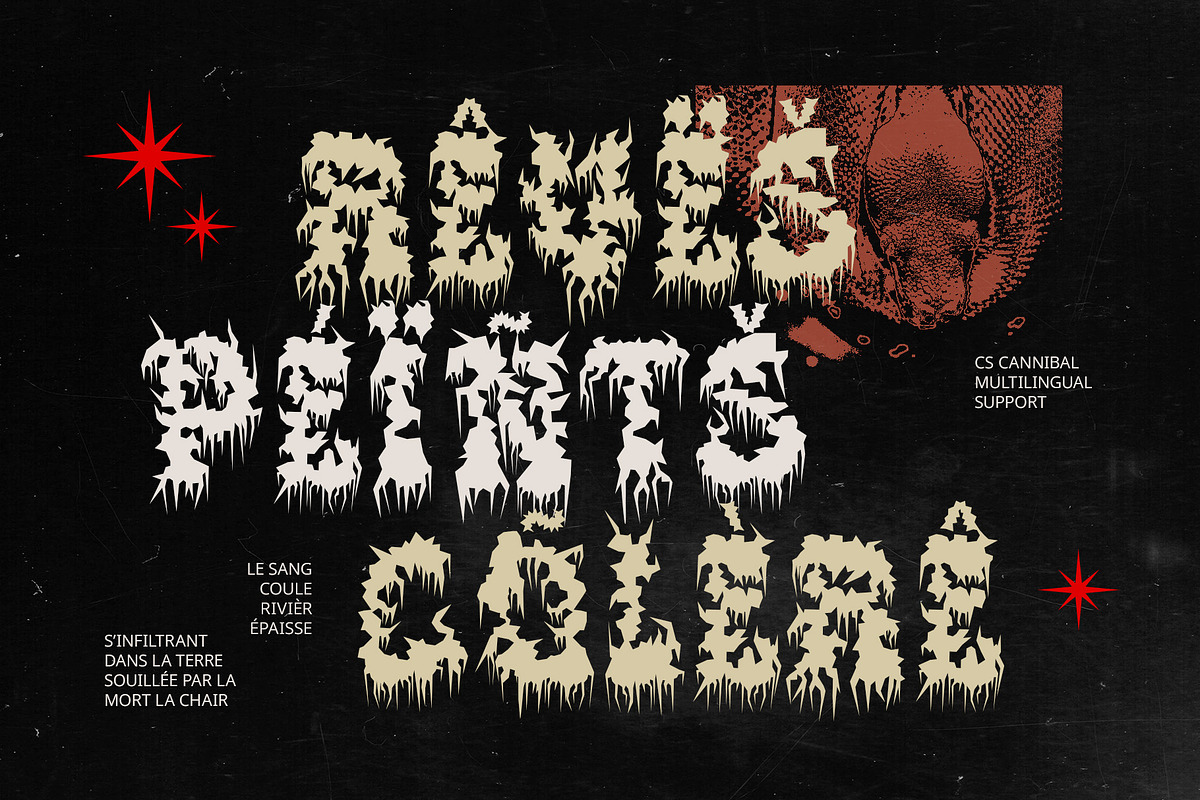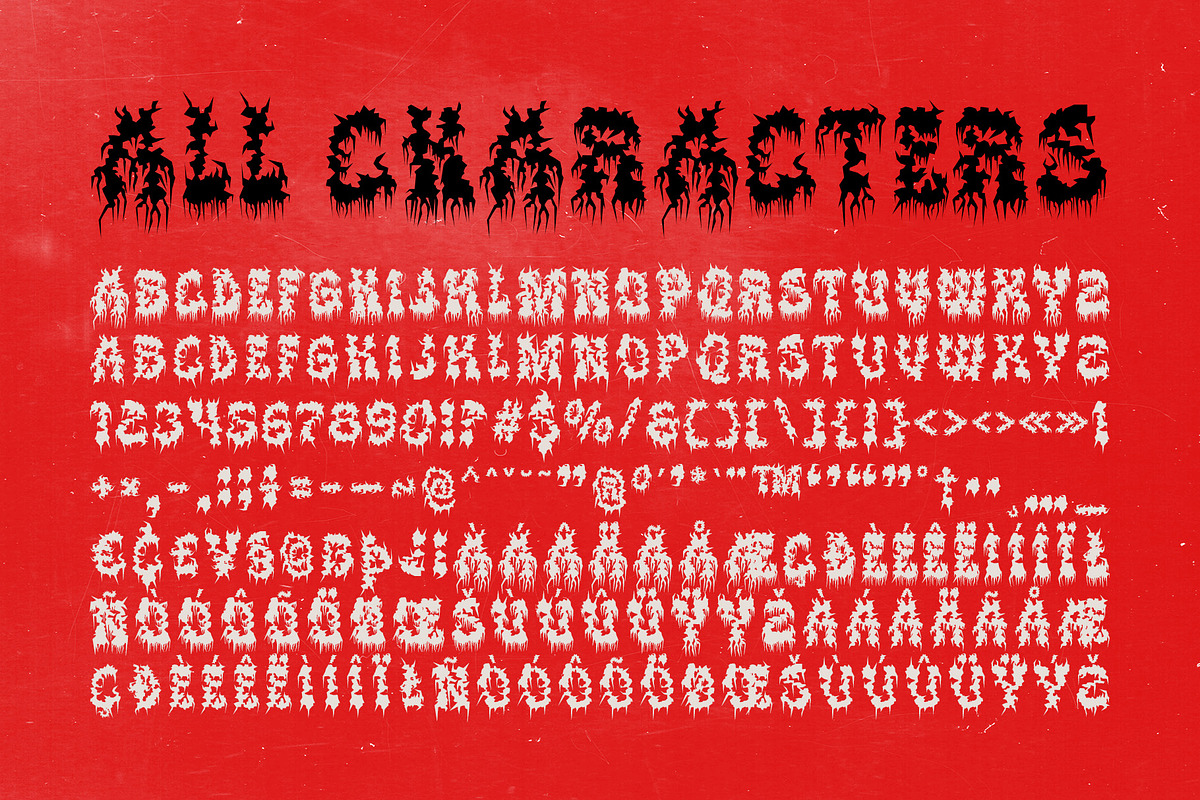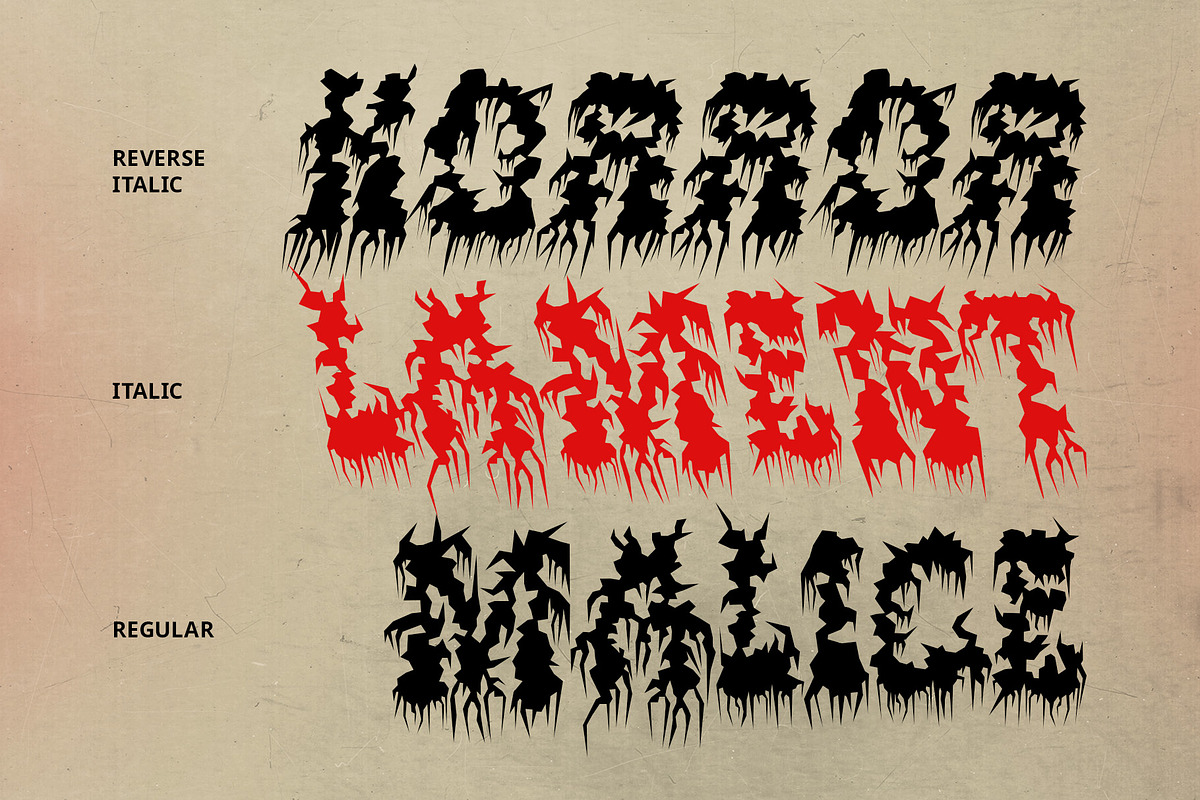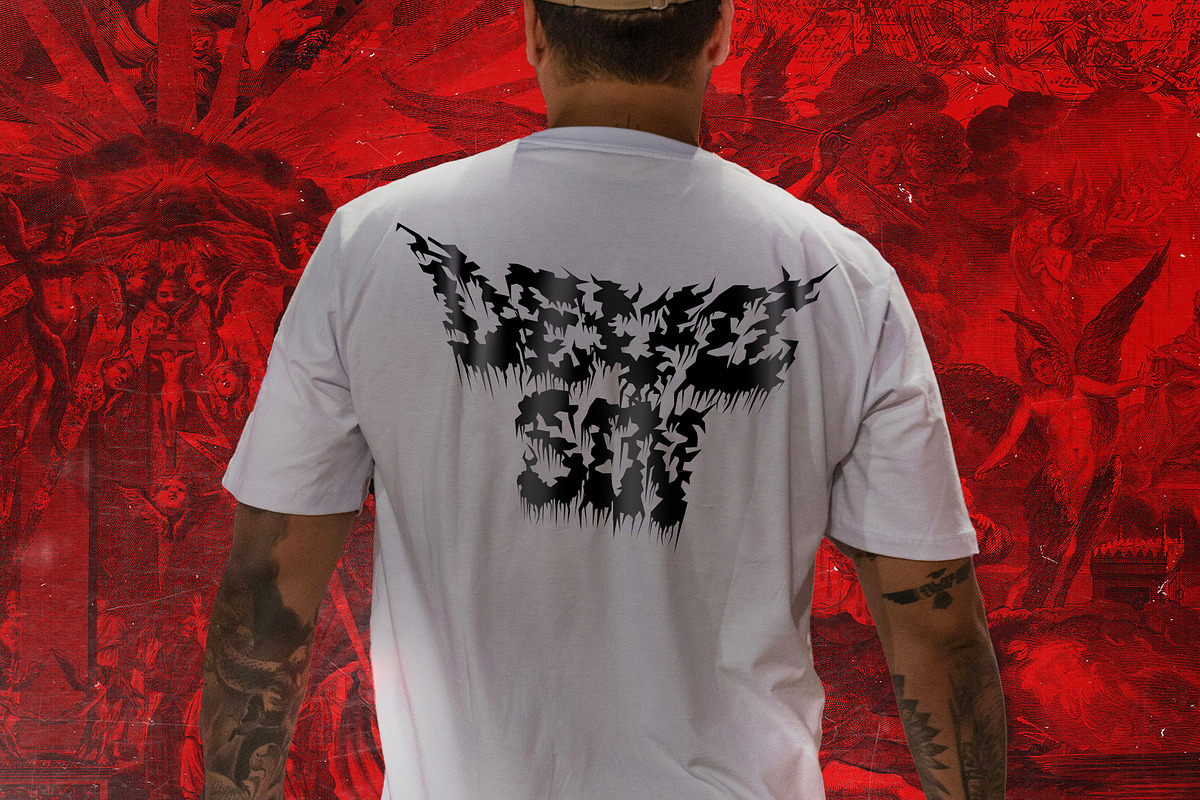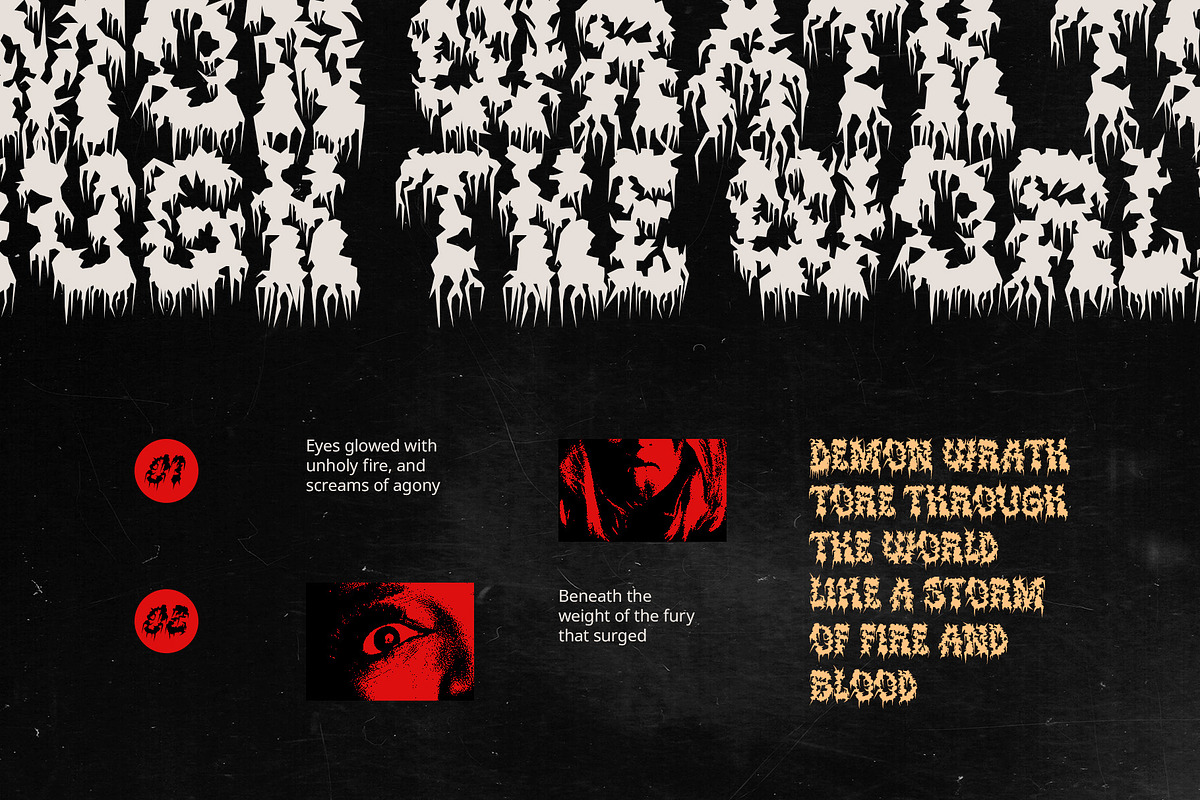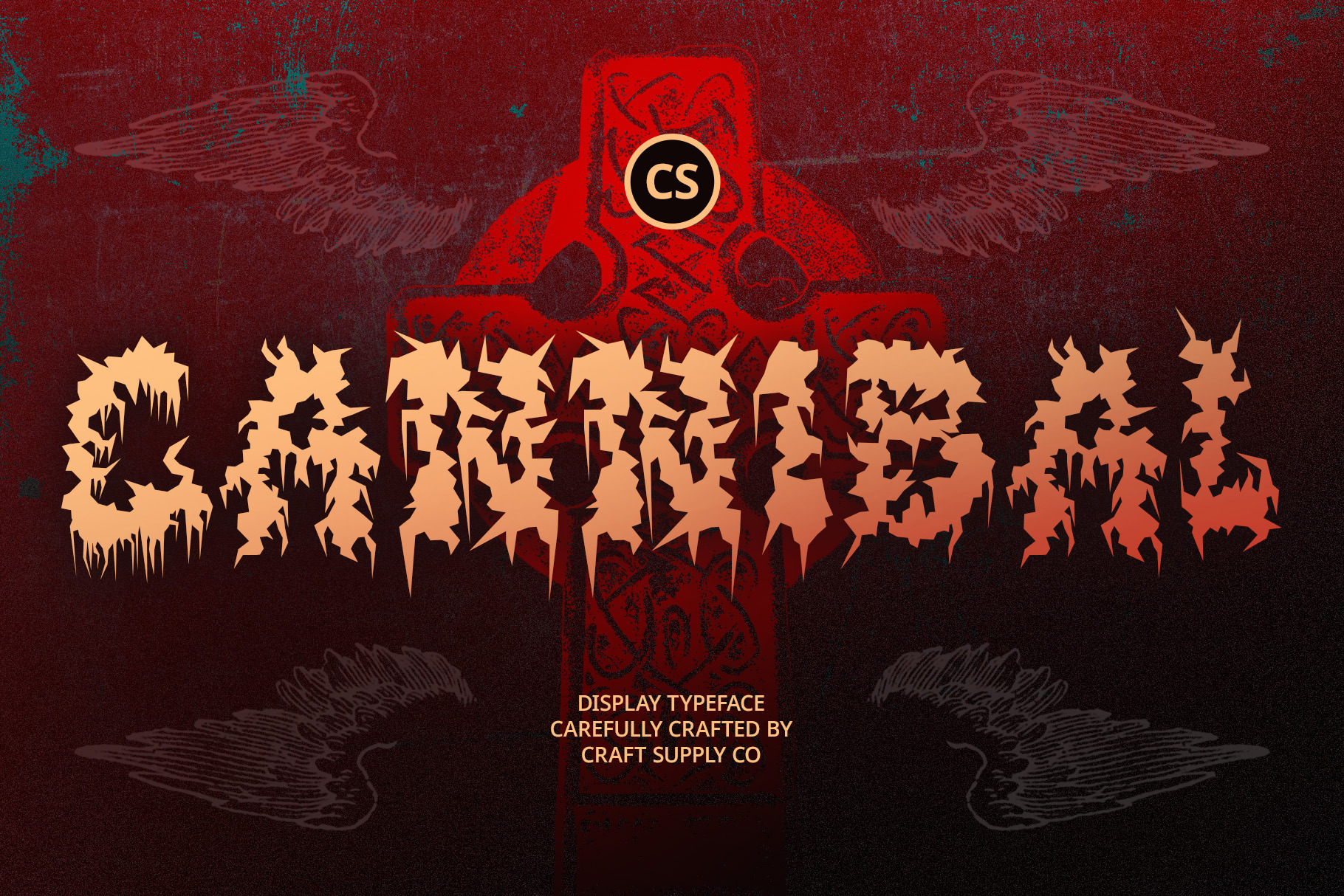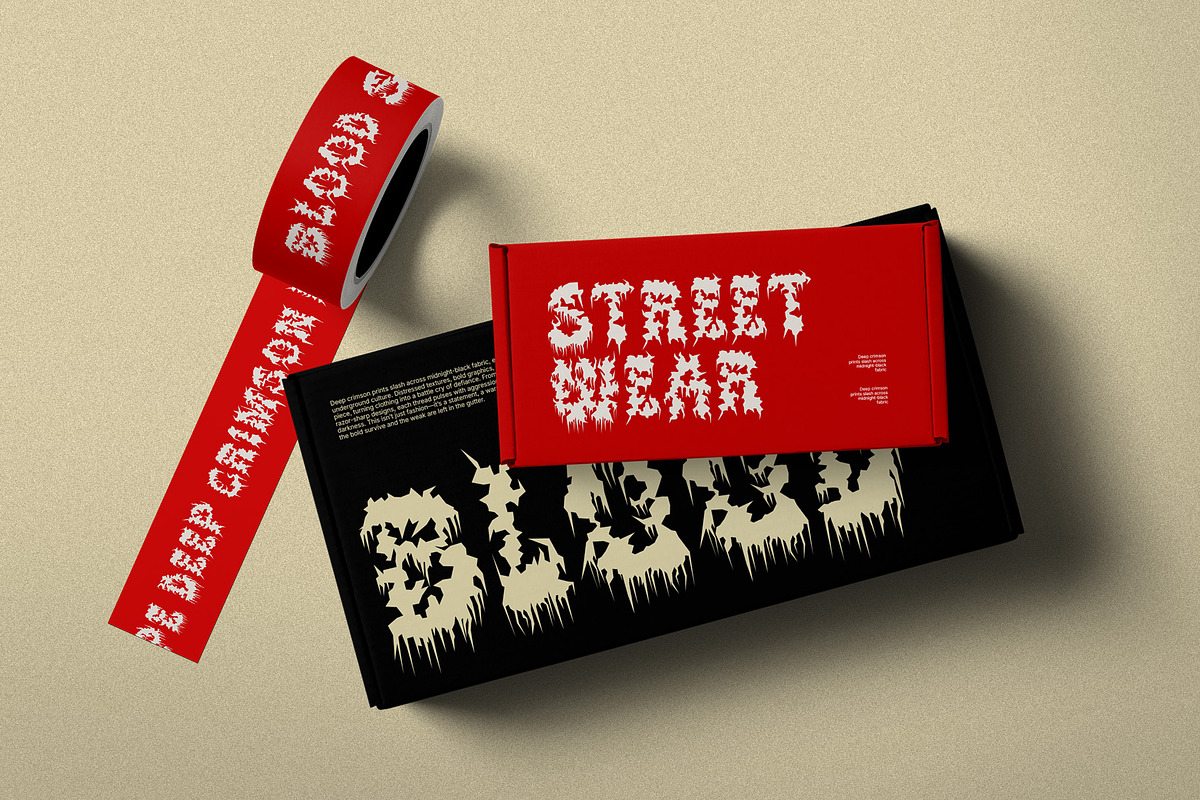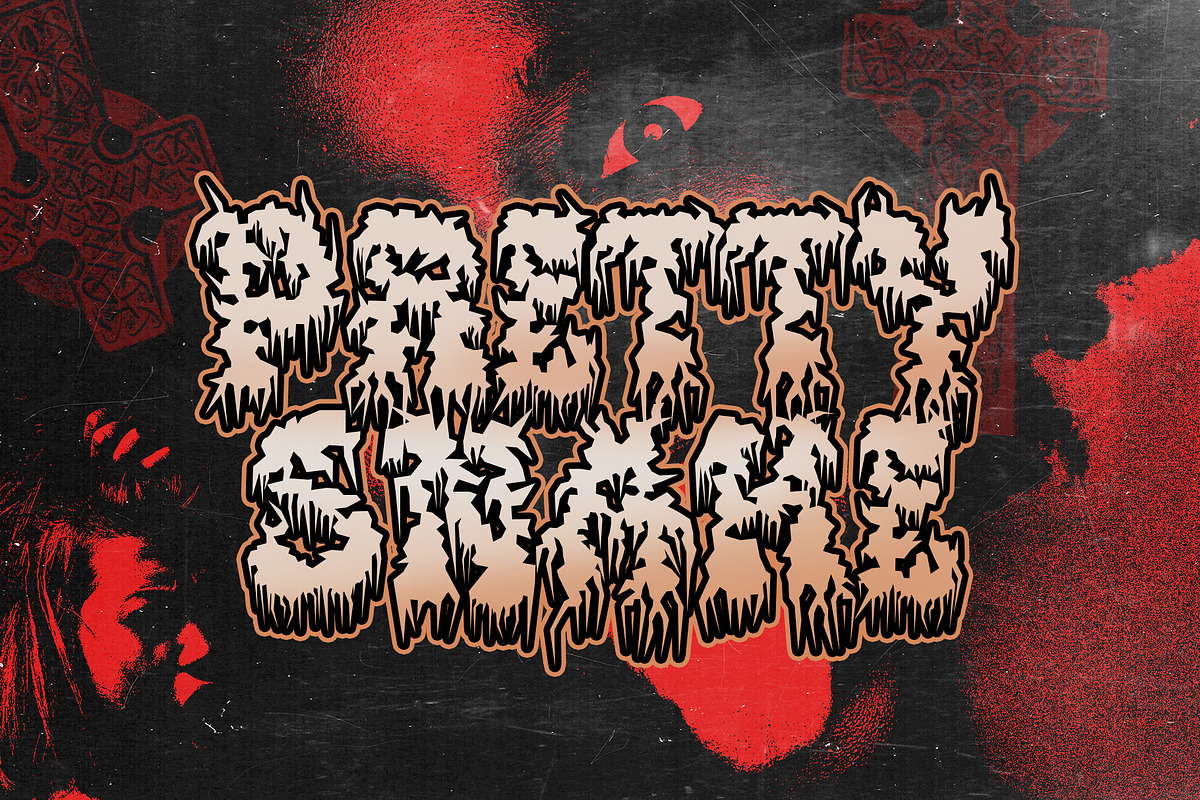
CS Cannibal – Black Metal Font
CS Cannibal – Black Metal Font: Raw, Chaotic, and Extreme
Brutal Black Metal Display Font CS Cannibal is a Black Metal display font designed to capture the raw intensity and dark mysticism of extreme metal aesthetics. With its sharp, aggressive strokes and distorted letterforms, this font embodies the spirit of chaos, rebellion, and underground culture, making it a perfect fit for designs that demand a fierce and unrelenting presence.
Jagged Textures and Mystical Elements Featuring rough, thorn-like textures, jagged edges, and abstract details resembling roots or mystical symbols, CS Cannibal enhances the brutal and eerie atmosphere of metal-inspired visuals. Its unconventional and chaotic shapes mirror the intensity of extreme music, creating an unmistakable visual impact.
Perfect for Extreme and Gothic Designs Designed for metal band logos, album covers, horror posters, and gothic-themed artwork, CS Cannibal thrives in dark, atmospheric, and rebellious design spaces. Its wild and untamed appearance ensures that any project stands out with a striking and ominous effect.
Uncompromising and Unforgettable While intentionally challenging to read, CS Cannibal serves as a symbol of defiance and artistic expression. It is the ultimate font for designers who embrace the avant-garde, the extreme, and the macabre, delivering an unmistakable sense of darkness and brutality.